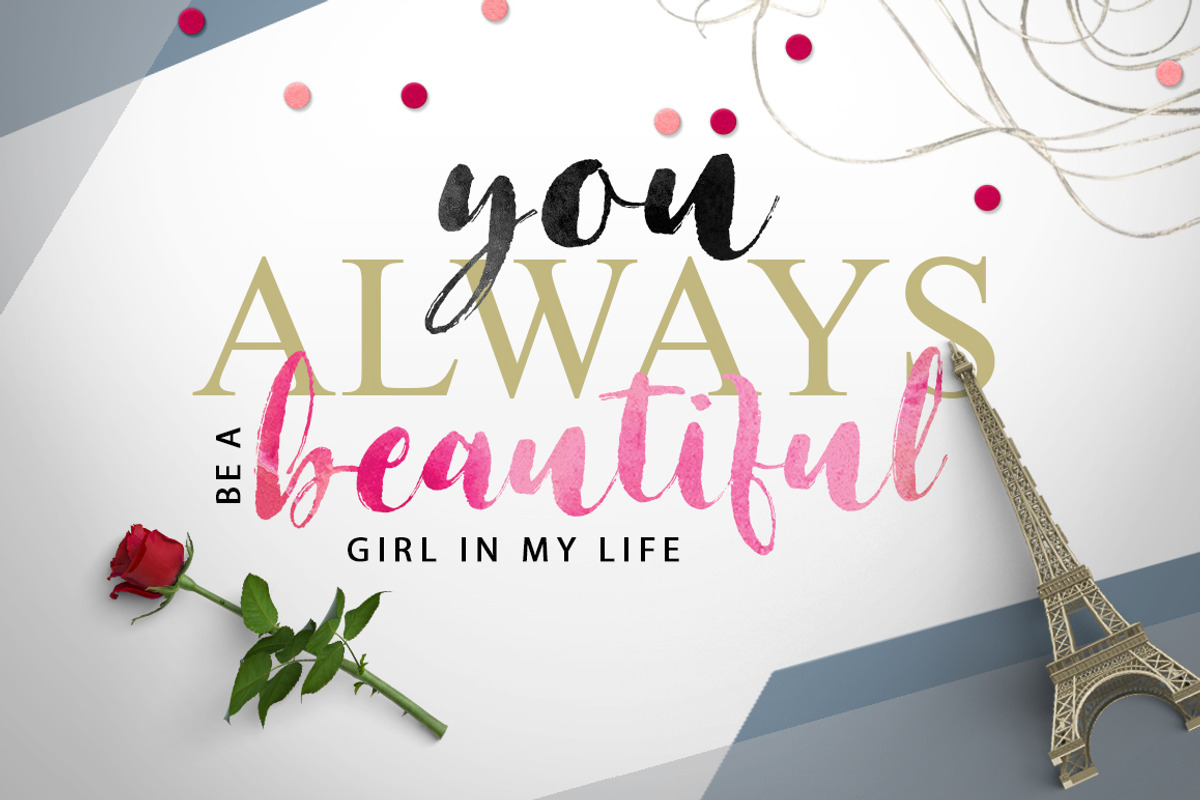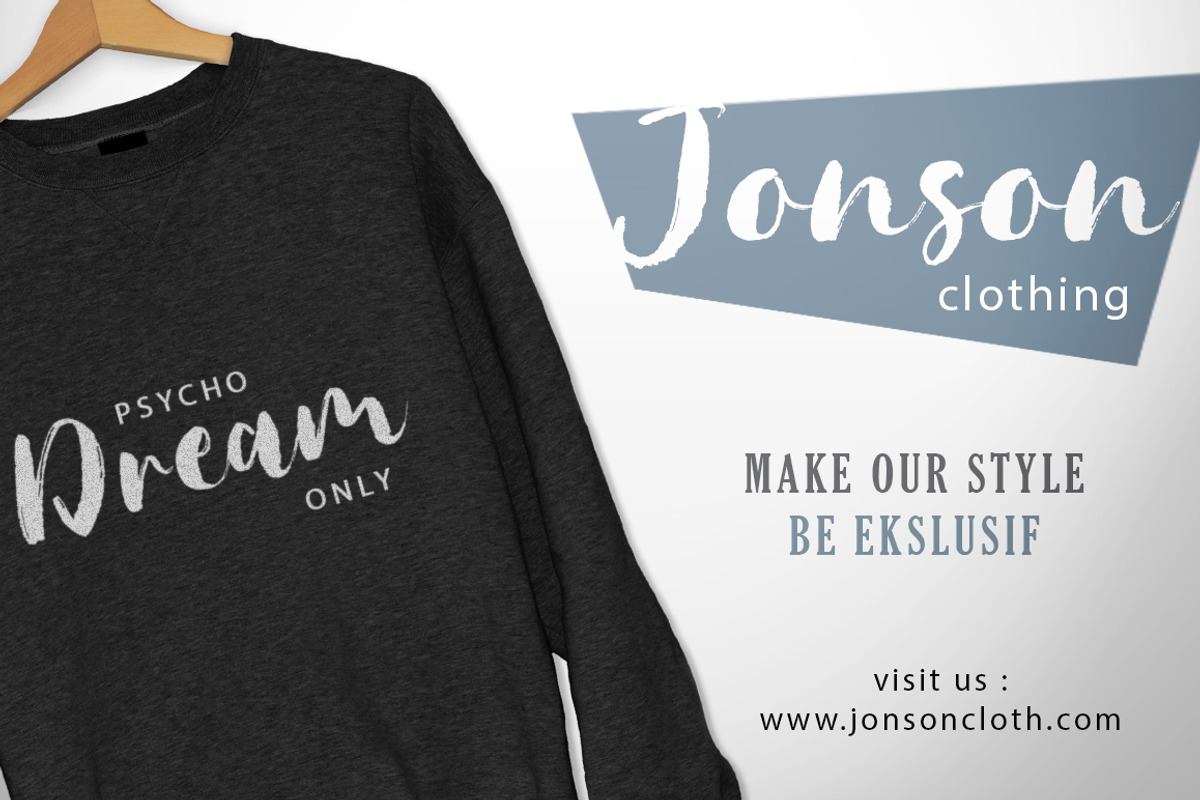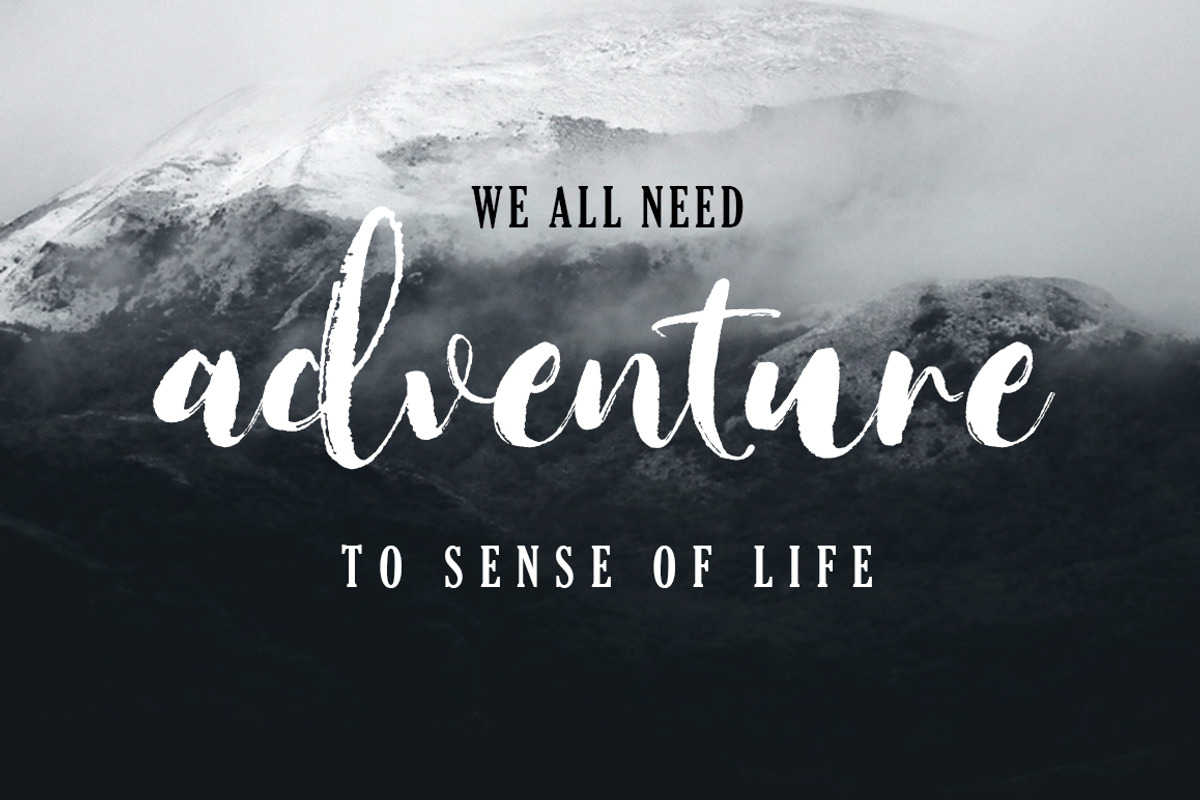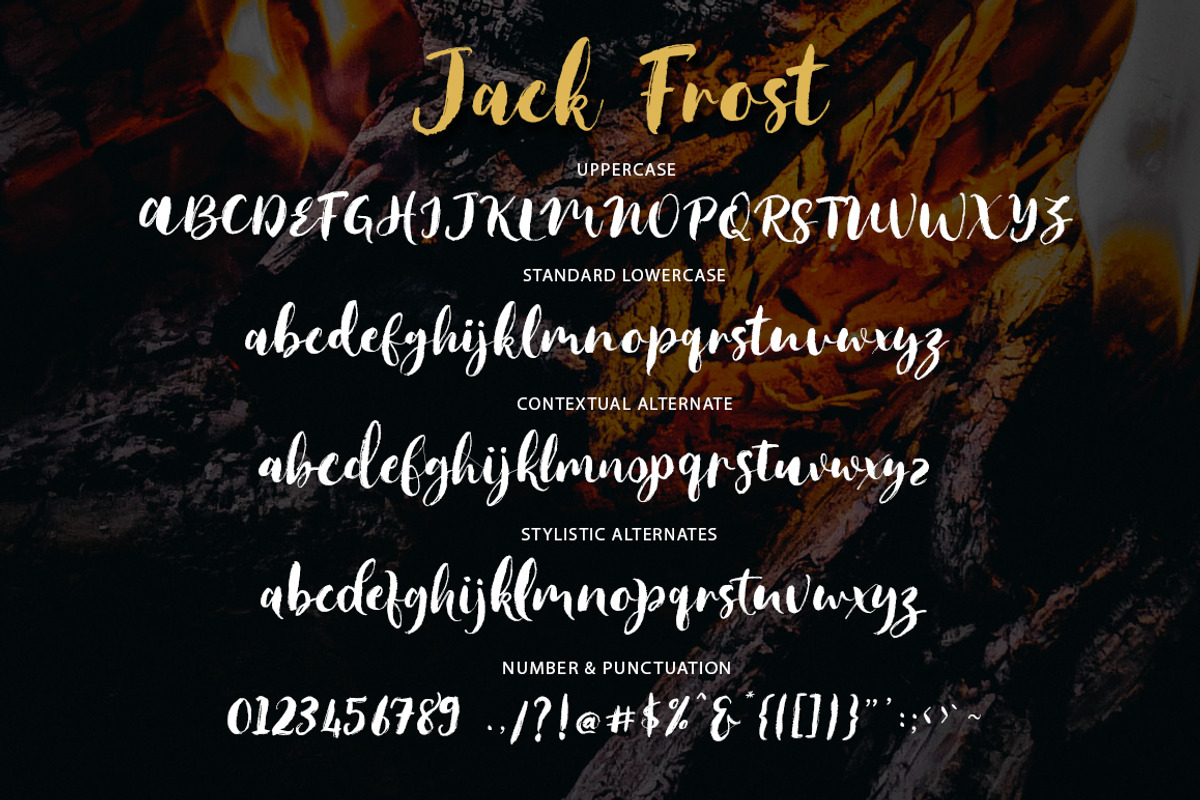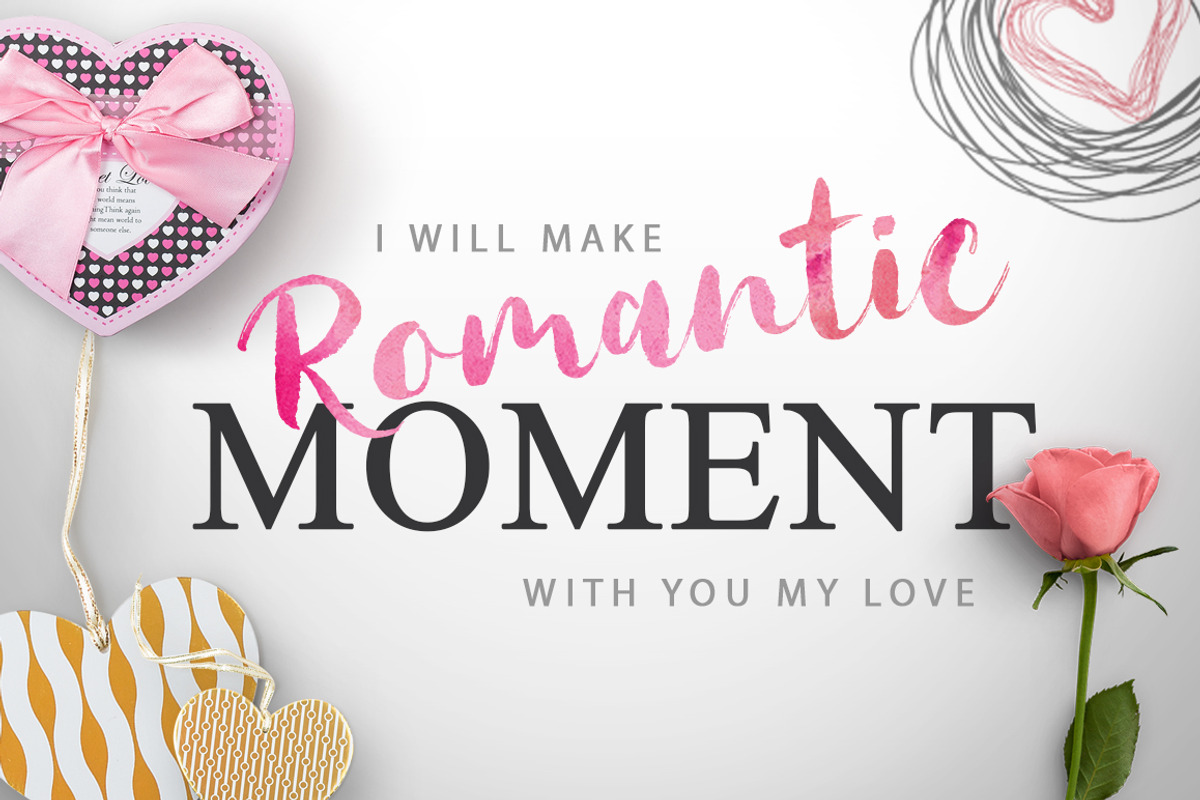
Jack Frost Brush
Let me introduce a JACK FROST BRUSH!
JACK FROST is a handmade style font with stunning characters. Made with a brush and high quality water-based ink. Ideal for name tag, handwritten quotes, product packaging, merchandise, social media, greeting cards, etc. It contains a full set of lower & uppercase letters, a large range of punctuation, numerals.
To make your designs look even more naturally handwritten, JACK FROST BRUSH has 1 extra sets of Contextual alternate & Stylistic lowercase letters.